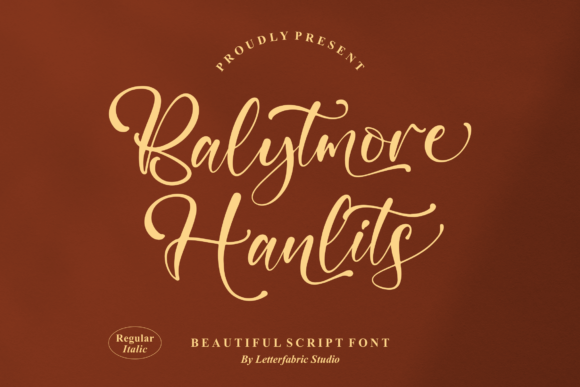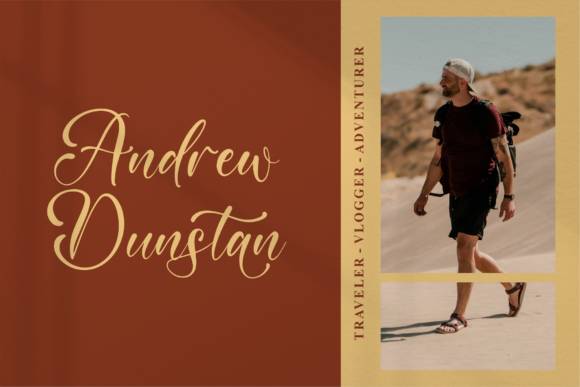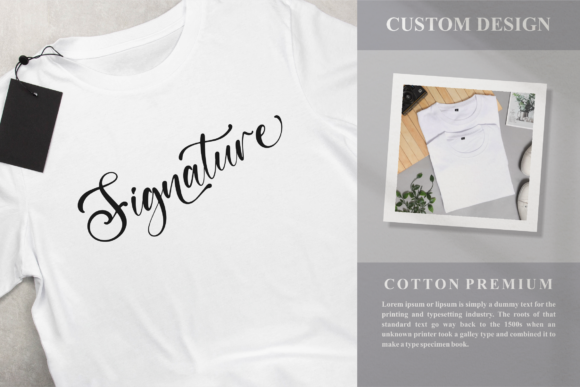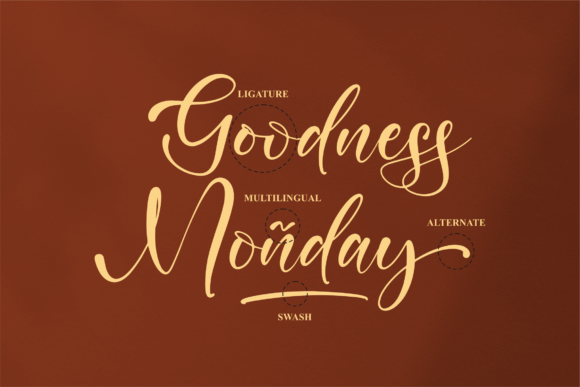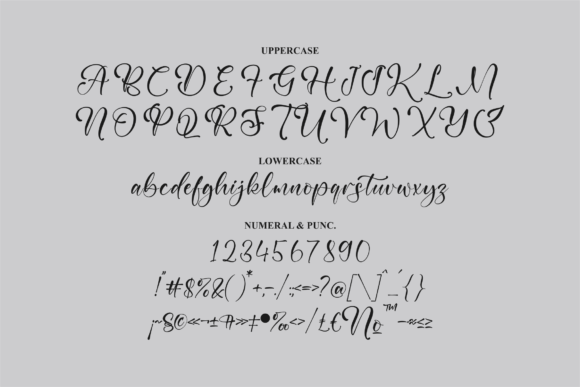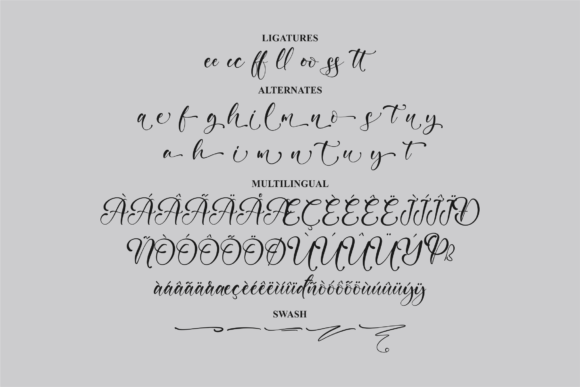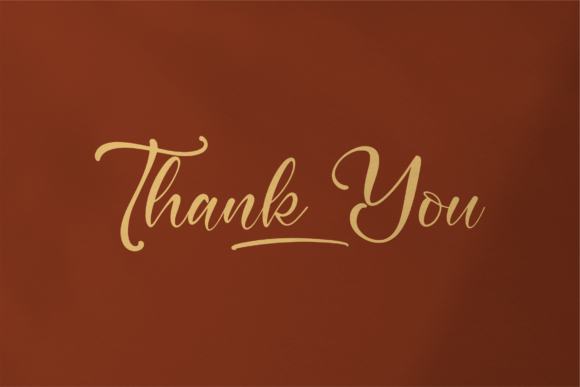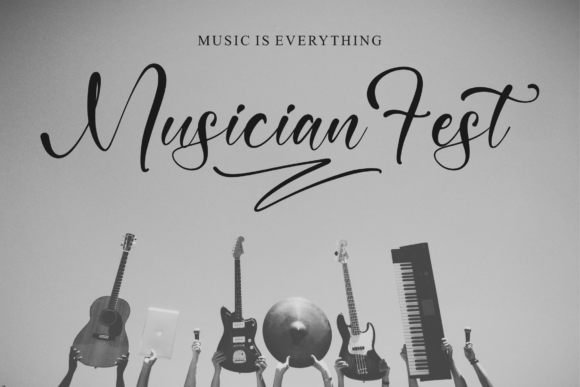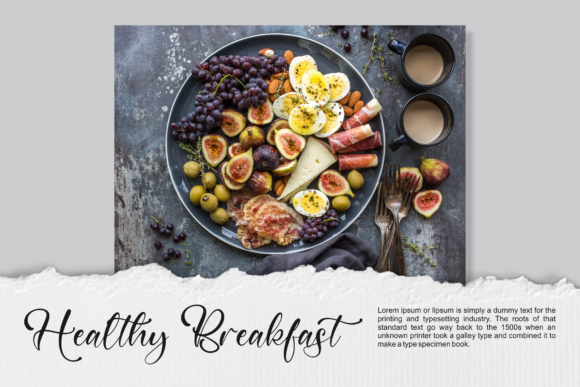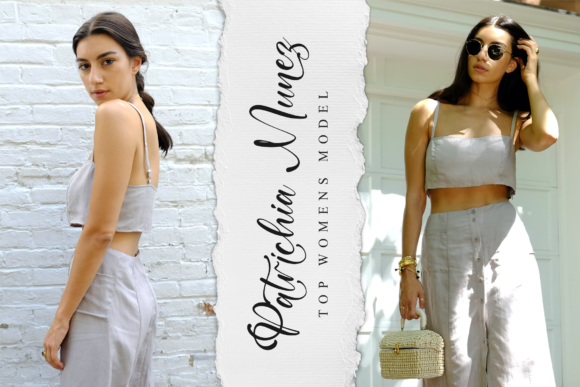
Balytmore Hanlits Font
About Balytmore Hanlits Font
“Balytmore Hanlits” is a sophisticated and elegant script font that exudes style and charm. Its graceful and dainty letterforms make it a versatile choice for a wide range of projects, from logos and branding to labels, photography, and special events.
In logo design, “Balytmore Hanlits” can create a memorable and distinctive visual identity. Its stylish and dainty appearance adds a touch of sophistication, making your brand stand out and leave a lasting impression on your audience.
For branding projects, the font’s elegant script style can convey a sense of luxury and refinement. Whether it’s used on packaging, business cards, or promotional materials, “Balytmore Hanlits” adds a touch of class to your brand’s image.
When applied to labels, the font’s dainty and stylish look can enhance the overall aesthetic of your products. Whether you’re designing wine labels, beauty products, or handmade goods, the font’s script style adds a sense of elegance and craftsmanship.
In photography, “Balytmore Hanlits” can be used to create watermarks that blend seamlessly with your images. Its graceful curves and swashes add a decorative element without overwhelming the main focus of the photograph.
Special events such as weddings, parties, and celebrations can also benefit from the font’s beautiful script taste. From invitations to place cards, “Balytmore Hanlits” adds a touch of romance and sophistication, setting the tone for a memorable occasion.
With its PUA encoded feature, you have easy access to a variety of glyphs and swashes, allowing you to customize and personalize your designs with ease.
In summary, “Balytmore Hanlits” is a stylish and dainty script font that can elevate your projects to new levels of elegance and sophistication. Its versatility makes it a perfect choice for a wide range of design applications, ensuring that your creations exude beauty and charm.